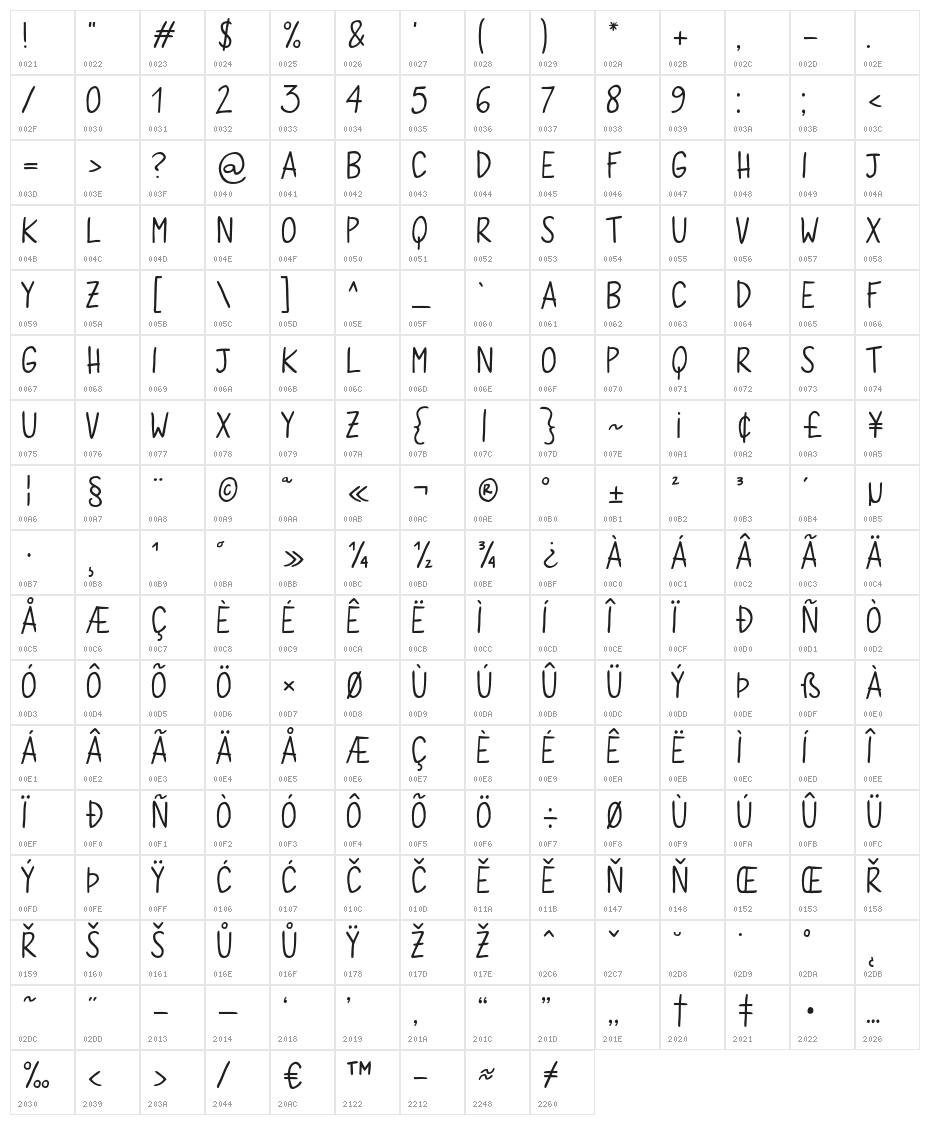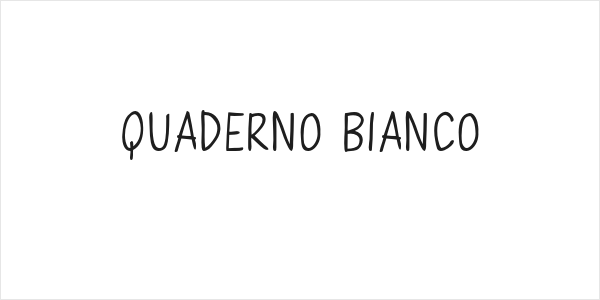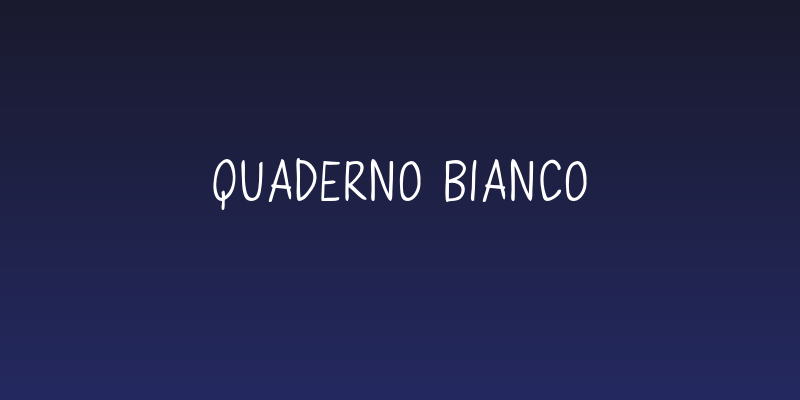
Quaderno Bianco Font
Quaderno Bianco Description
This font features a playful and casual handwritten style, characterized by its irregular and slightly whimsical letterforms. The strokes are smooth and rounded, giving it a friendly and approachable appearance. Each character is distinct, with a natural flow that mimics the look of hand-drawn letters. The font maintains a consistent weight throughout, with moderate spacing between characters, ensuring readability while preserving its informal charm. The numerals and special characters align well with the overall style, making it versatile for various creative applications.